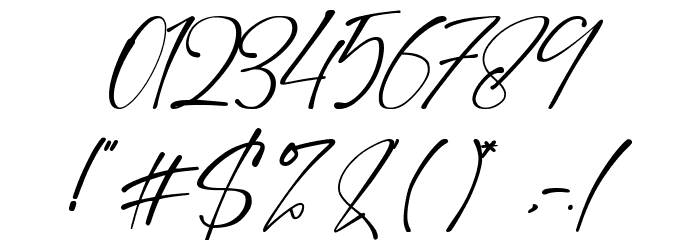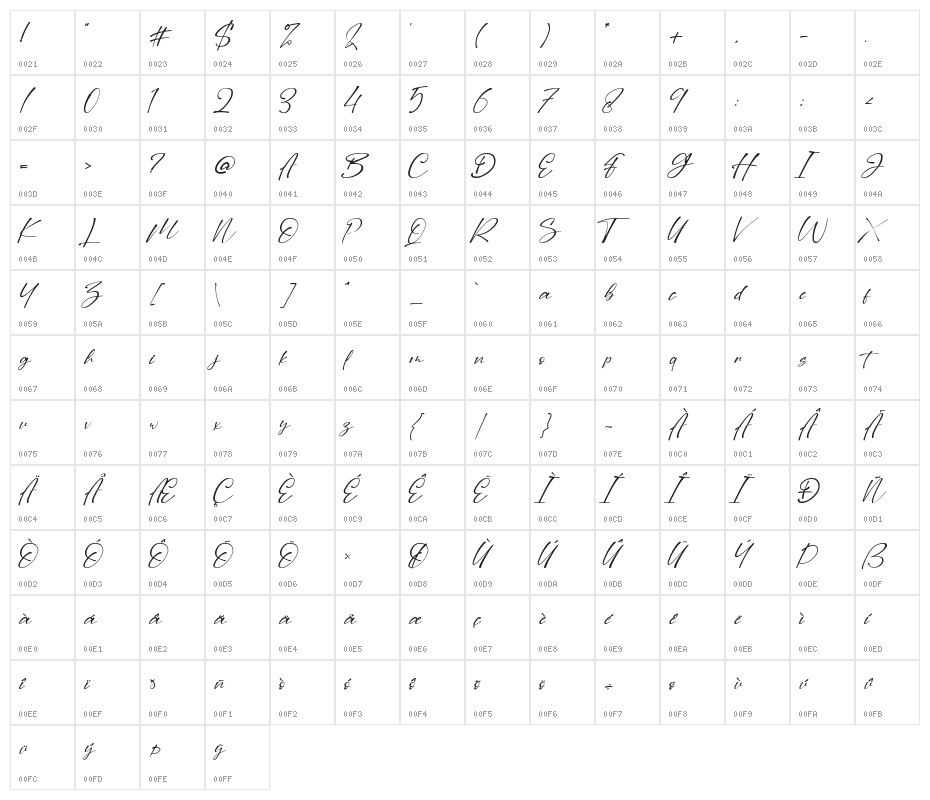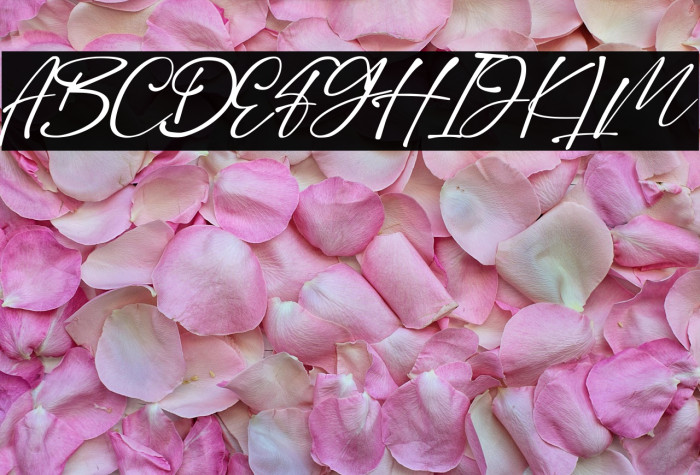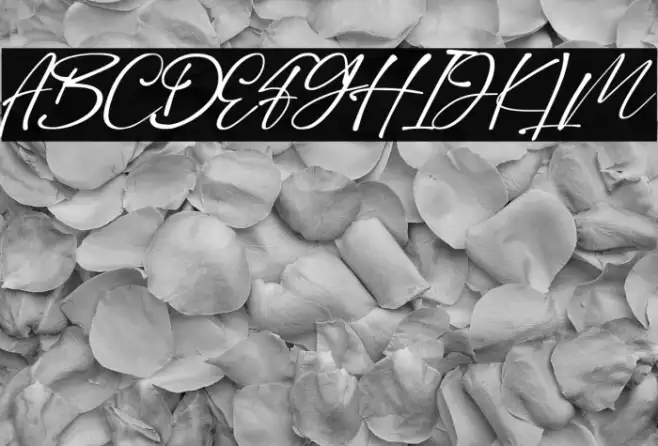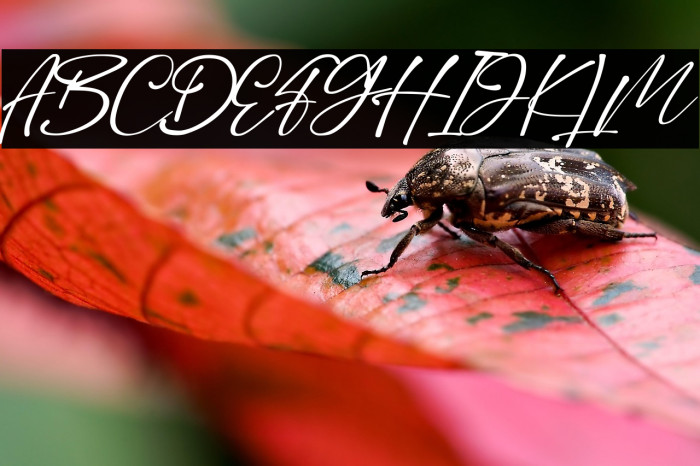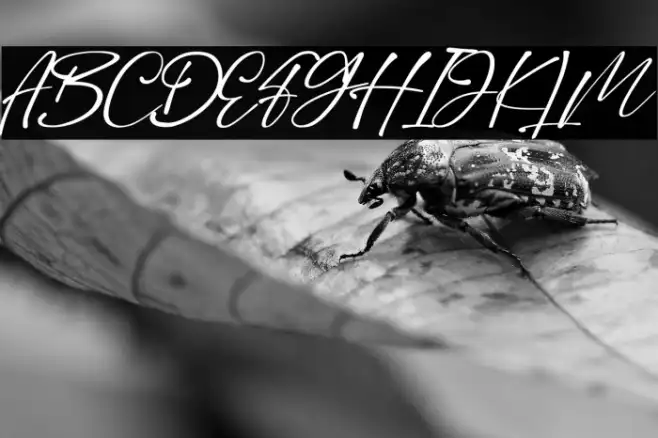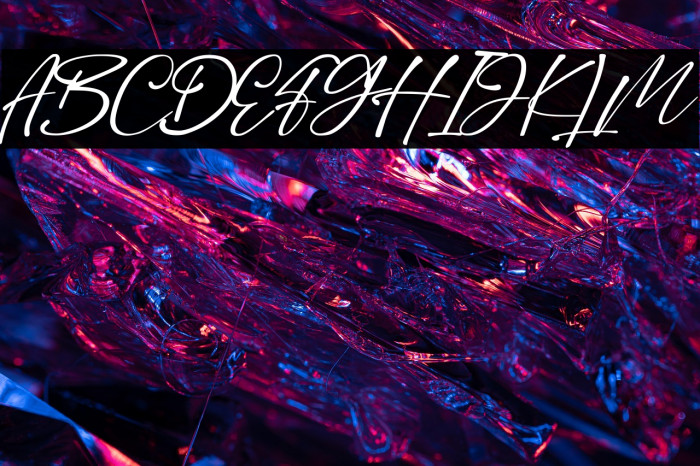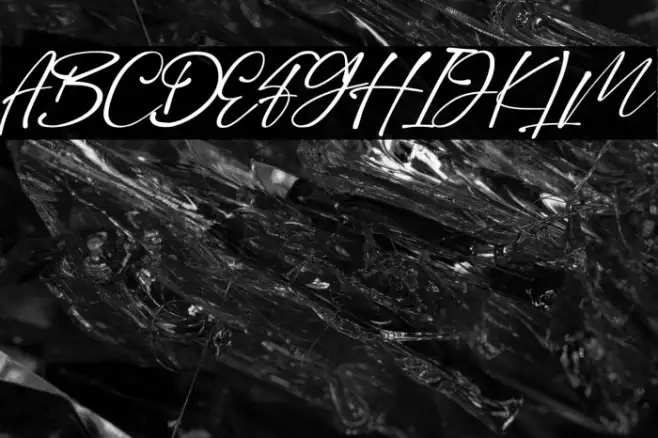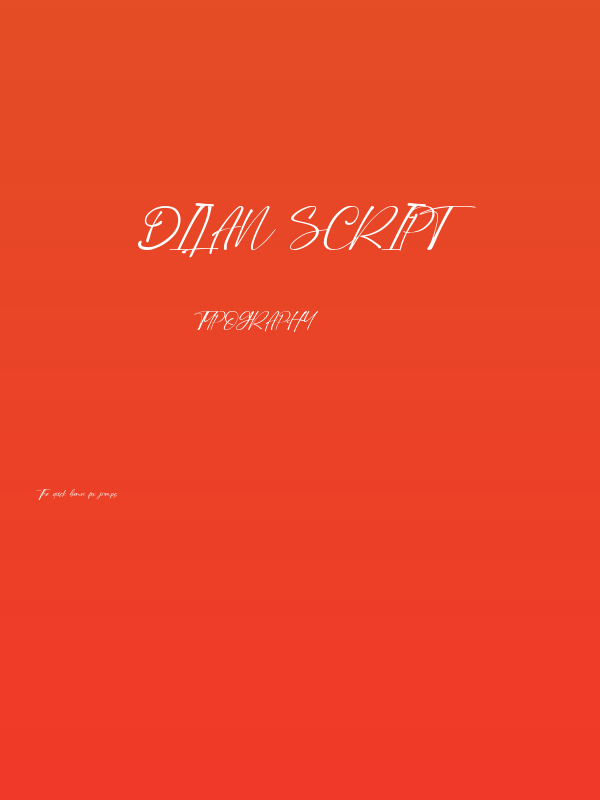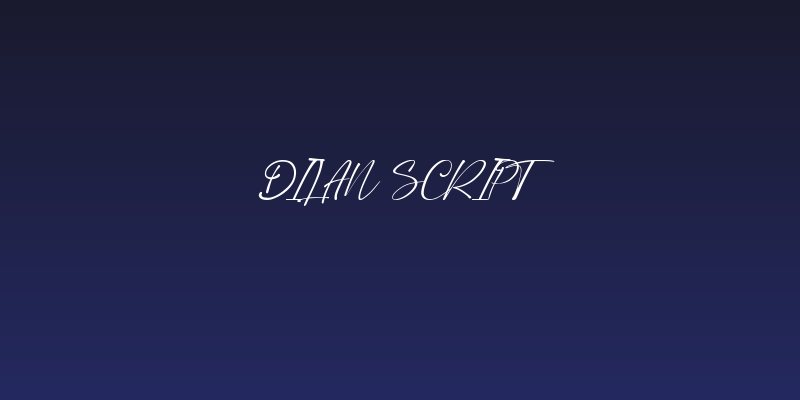
Dilan Script Font
Dilan Script Description
This font exudes a dynamic and elegant script style, characterized by its fluid and interconnected letterforms. The uppercase letters are bold and sweeping, with a sense of movement and flair, while the lowercase letters maintain a consistent flow, adding to the overall cohesiveness. The numbers and special characters are crafted with the same attention to detail, ensuring a harmonious look across all elements. The strokes vary in thickness, providing a medium contrast that enhances readability while maintaining an artistic touch. This font is perfect for projects that require a personal and sophisticated touch.